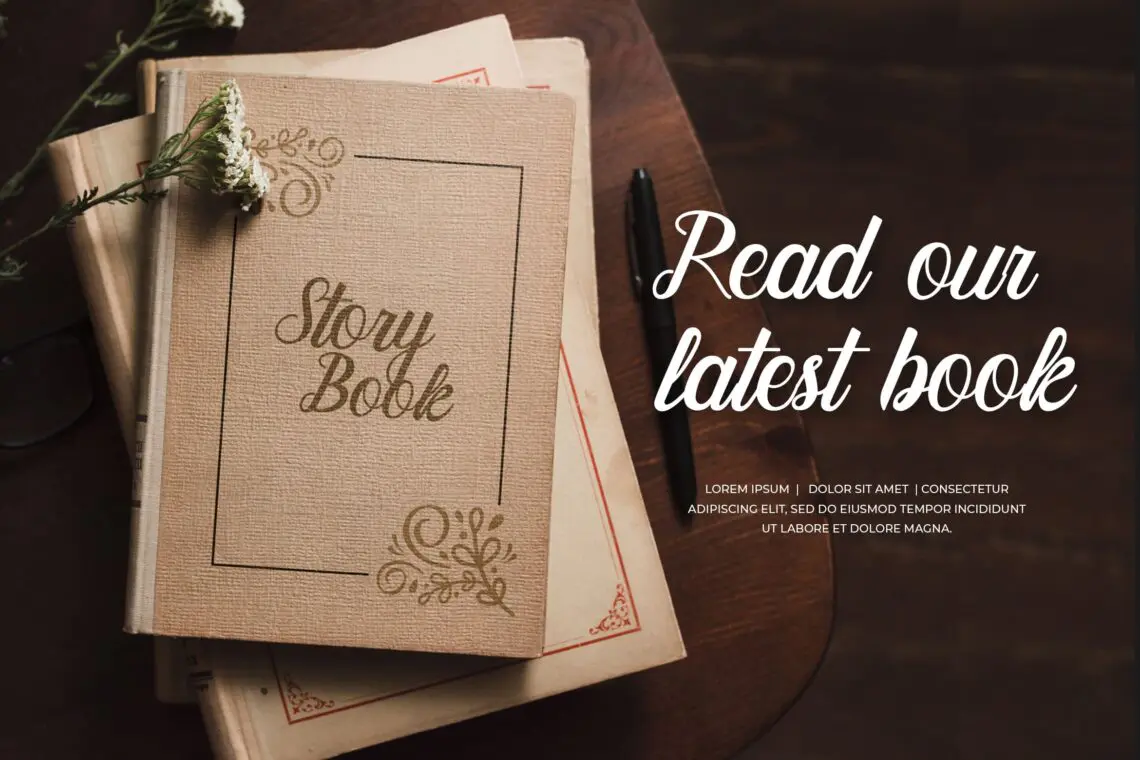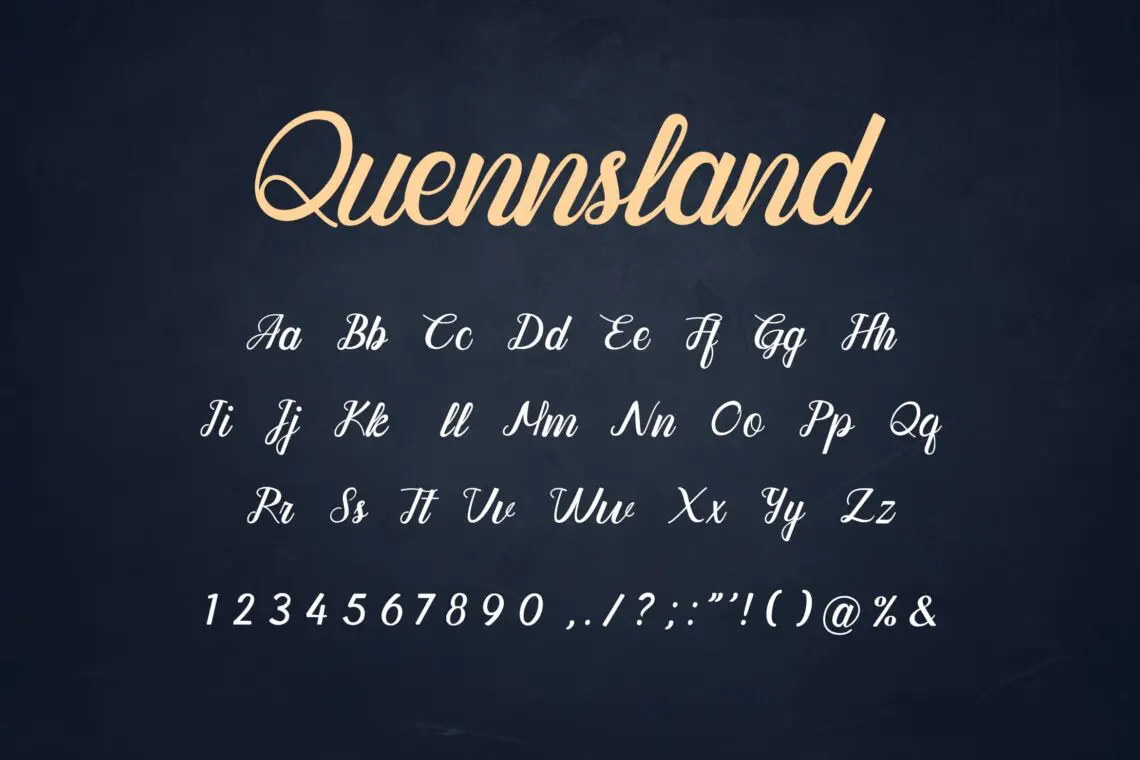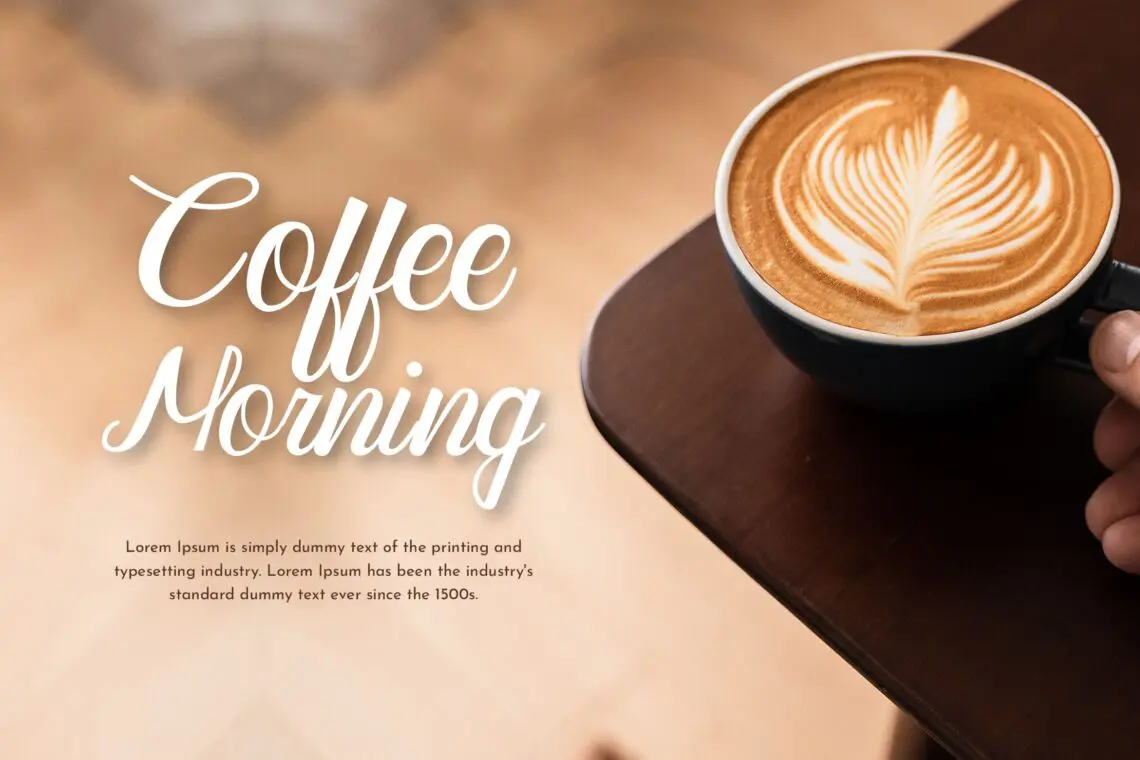
×Quennsland Font is a script calligraphy font that feels beautiful classy, elegant, and modern .This font is perfect suited for a wide variety of projects, as to signature, stationery, logo, wedding, typography quotes, magazine or book cover, website header, branding and more. Also for fashion related branding or editorial design and displays both masculine and feminine qualities.